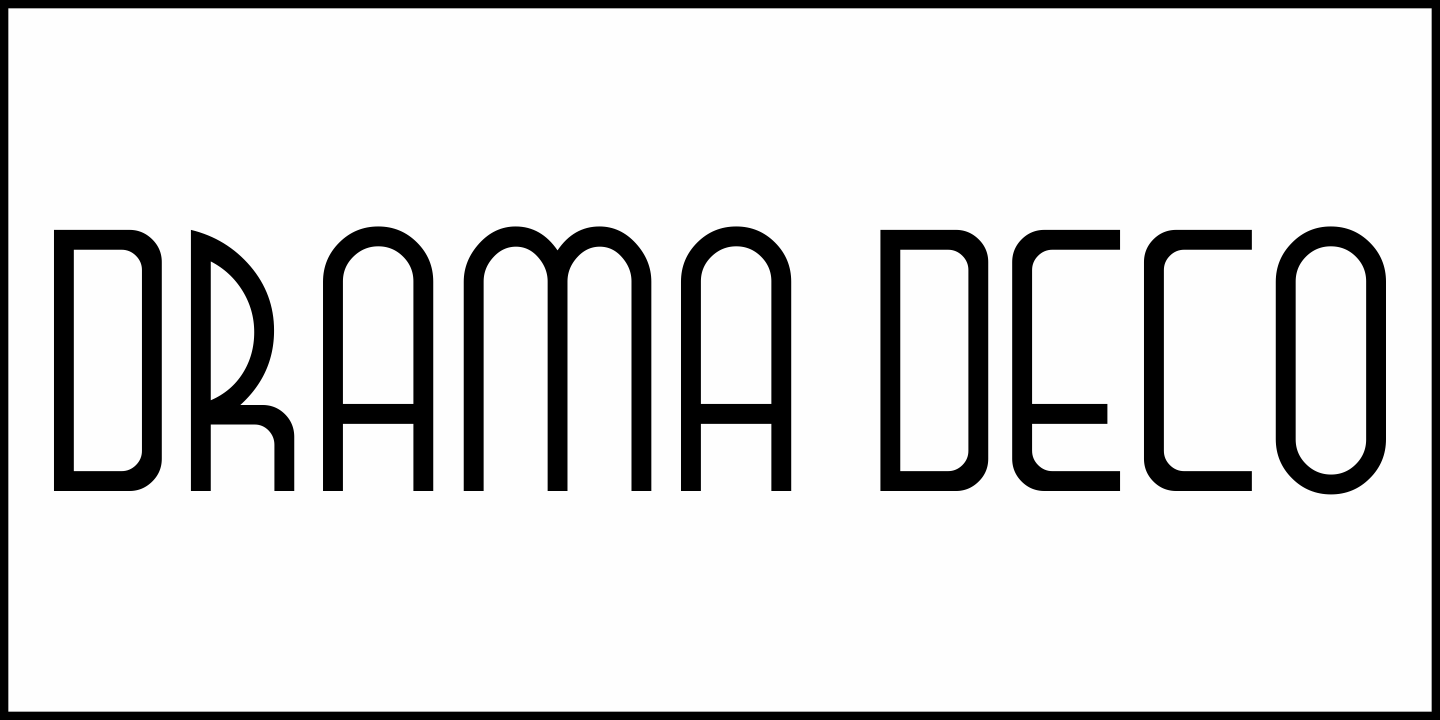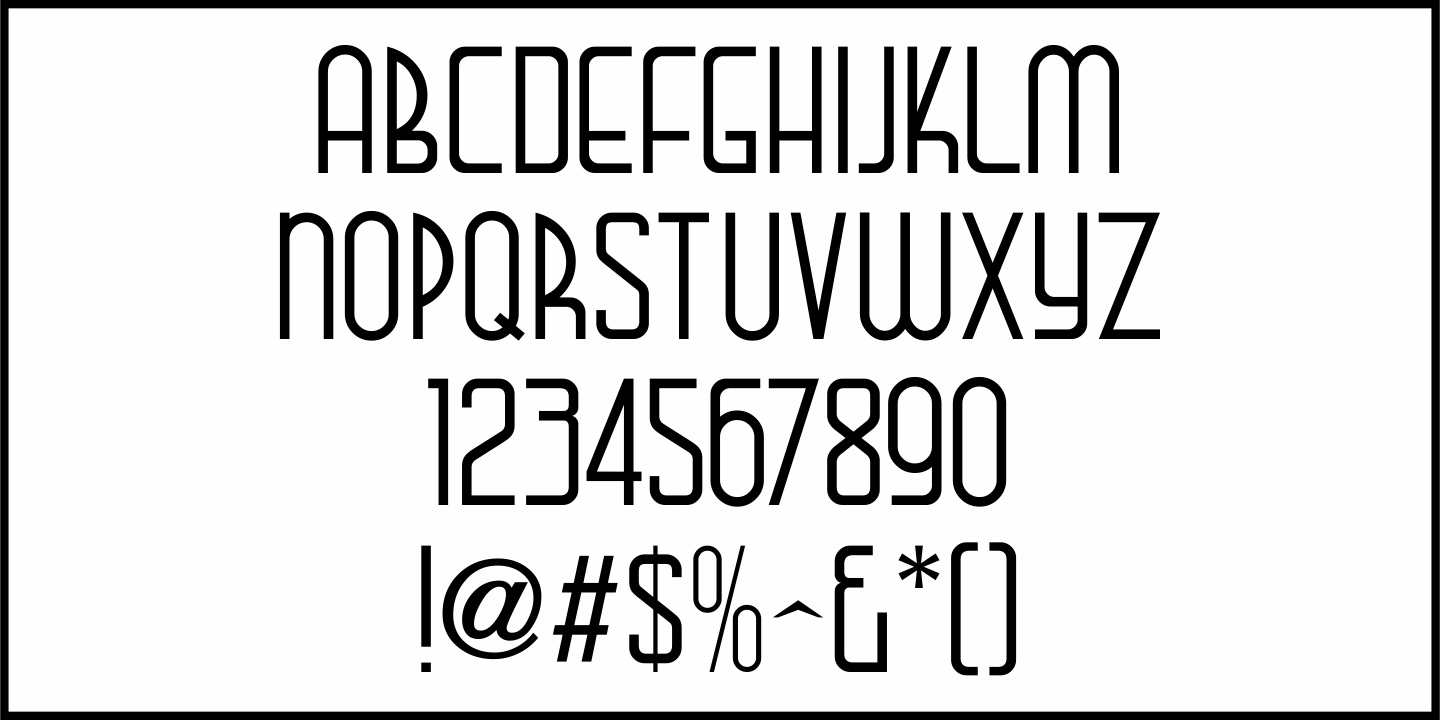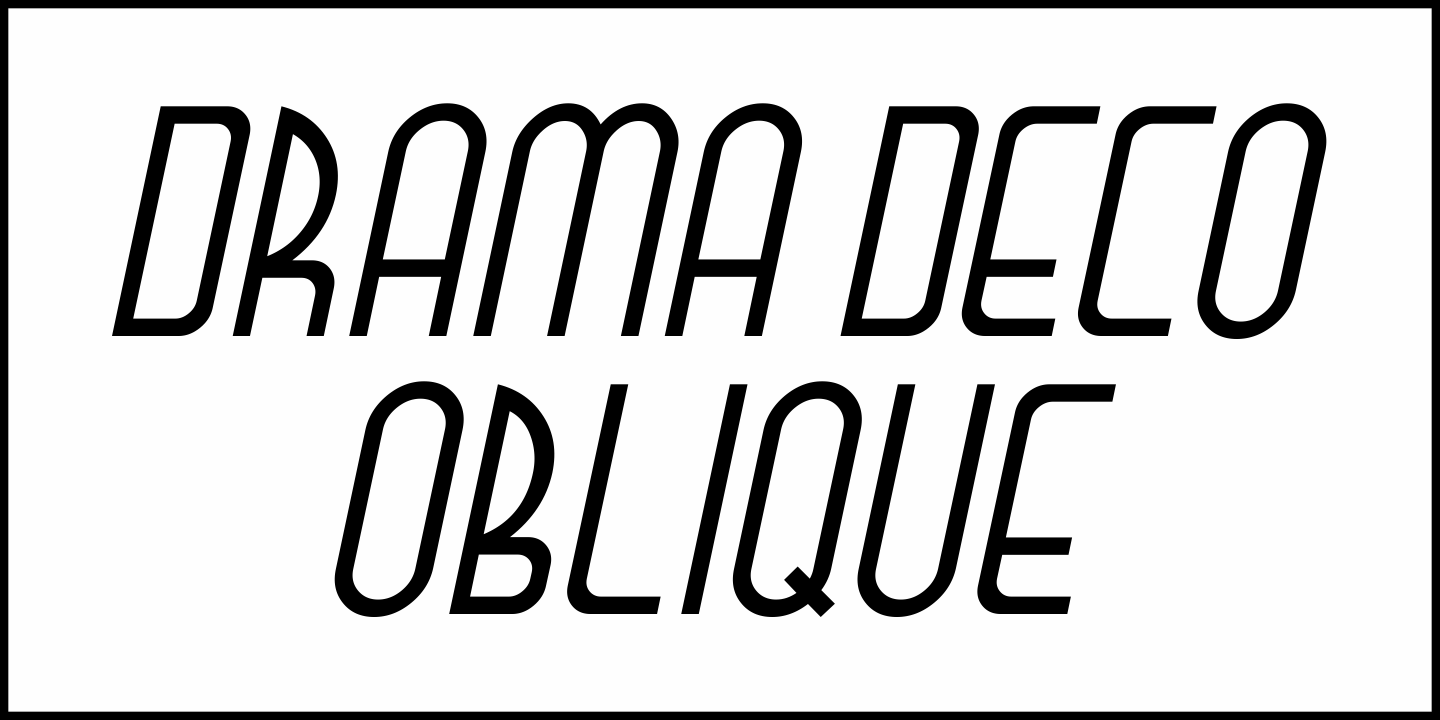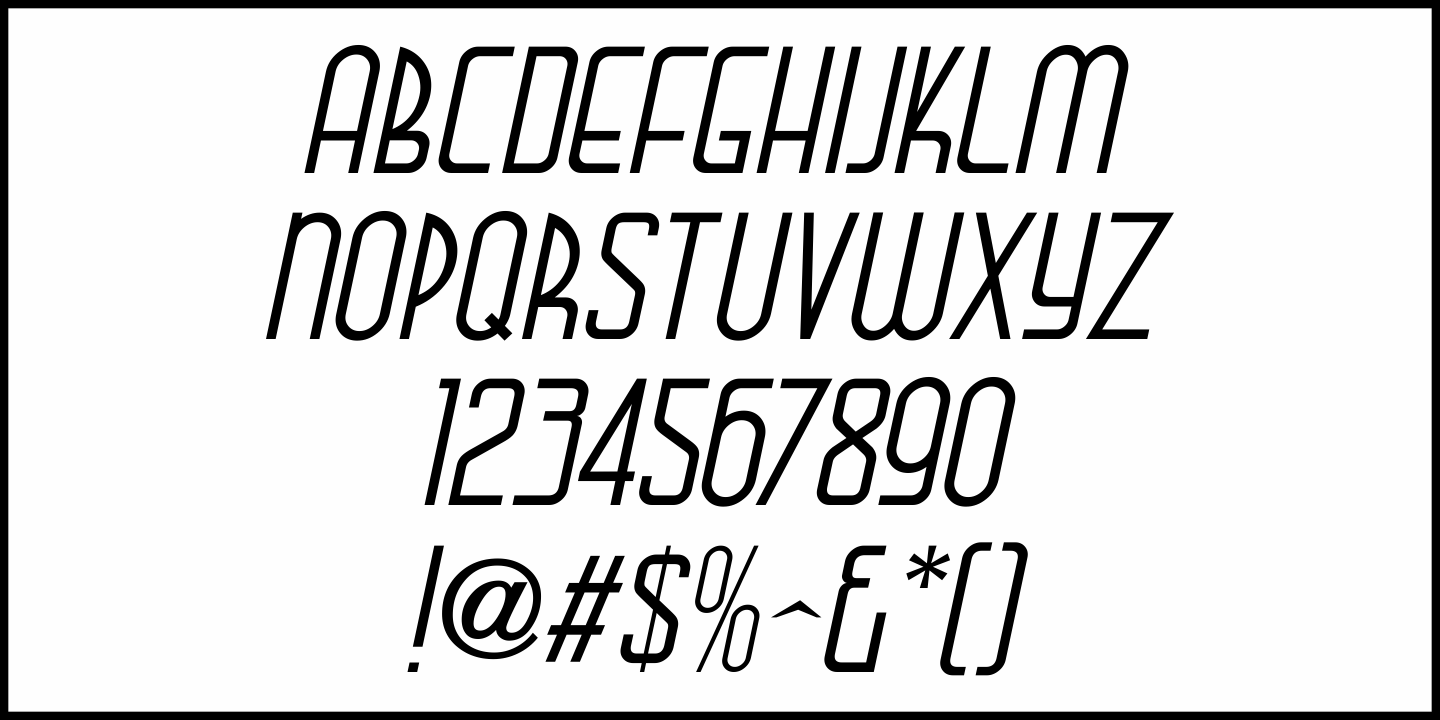
Drama Deco
The movie poster for the 1936 film 'Dodsworth” had its title hand lettered in a thin Art Deco sans serif with a mix of both stylized and squared characters.
Expanding on this unusual lettering combination, the final results became Drama Deco JNL, which is available in both regular and oblique versions.
Drama Deco JNL Regular by Jeff Levine Fonts